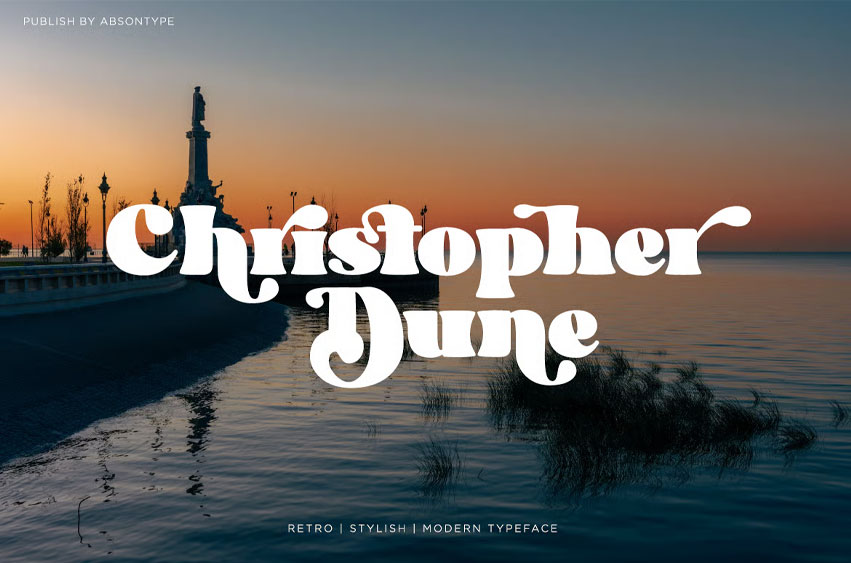
Christopher Dune Font
Christopher Dune Font is a Bold, Minimalist, elegant, Modern retro font with beautiful ligatures, tons of special alternative glyphs, ornaments, and multilingual support. It’s a very versatile font that works great in large and small sizes. Perfect for branding projects, Logo design, Clothing Branding, product packaging, magazine headers, or simply as a stylish text overlay to any background image.